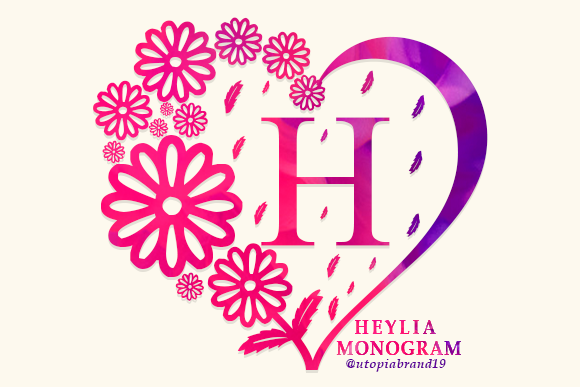
Unleash the beauty of your heartfelt moments with Heylia Monogram, an exquisite decorative font that captures the essence of elegance and grace. Designed with intricate ornaments that dance across each letter, Heylia Monogram is a visual masterpiece that will transform your creative projects into breathtaking works of art.
Fall in love with its authentic feel, reminiscent of vintage calligraphy, and let your imagination run wild as you craft gorgeous wedding invitations, stationery that exudes sophistication, captivating social media posts that shimmer with personality, and greeting cards that spread joy with every word.
With Heylia Monogram, your words become more than just text; they become a reflection of your personal style, your emotions, and your unique story. Imagine the delight on your loved ones' faces as they receive wedding invitations adorned with Heylia Monogram's exquisite swirls and flourishes, feeling the love and care you poured into each invitation.
Picture the awe and admiration as friends and family admire your beautifully crafted stationary art, each piece a testament to your impeccable taste and attention to detail. Transform your social media feed into a visual symphony of elegance with posts that sparkle with Heylia Monogram's charm, captivating your audience and leaving them longing for more.
With Heylia Monogram, the possibilities are endless. Create enchanting greeting cards that warm hearts and spread joy, expressing your heartfelt sentiments with a touch of sophistication. Whether it's a birthday wish, a heartfelt thank you, or a simple hello, let Heylia Monogram carry your message with grace and style.
Immerse yourself in the beauty of Heylia Monogram and embark on a creative journey that will leave you feeling inspired and fulfilled. Let your imagination soar as you weave words into works of art, transforming ordinary moments into cherished memories. Embrace the elegance, embrace the authenticity, and embrace the beauty of Heylia Monogram.